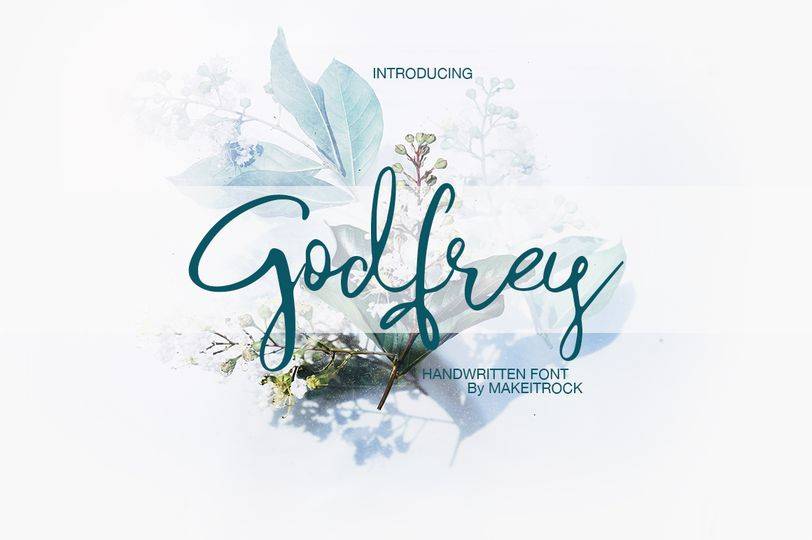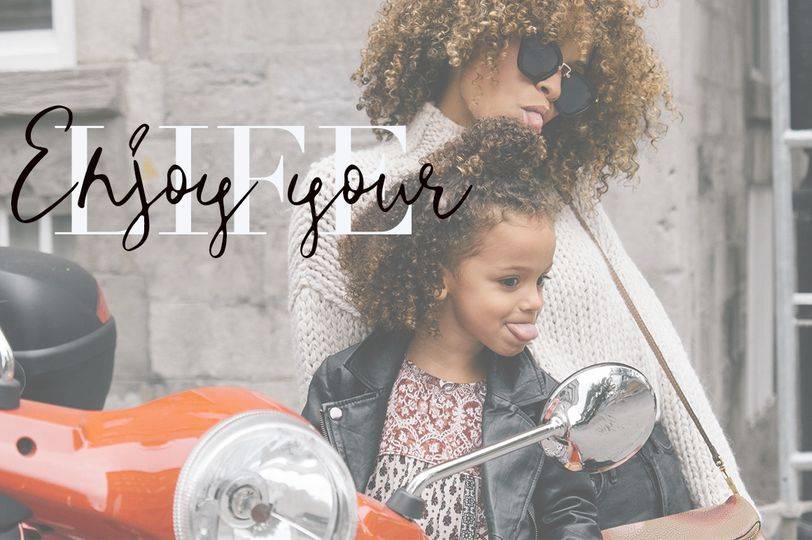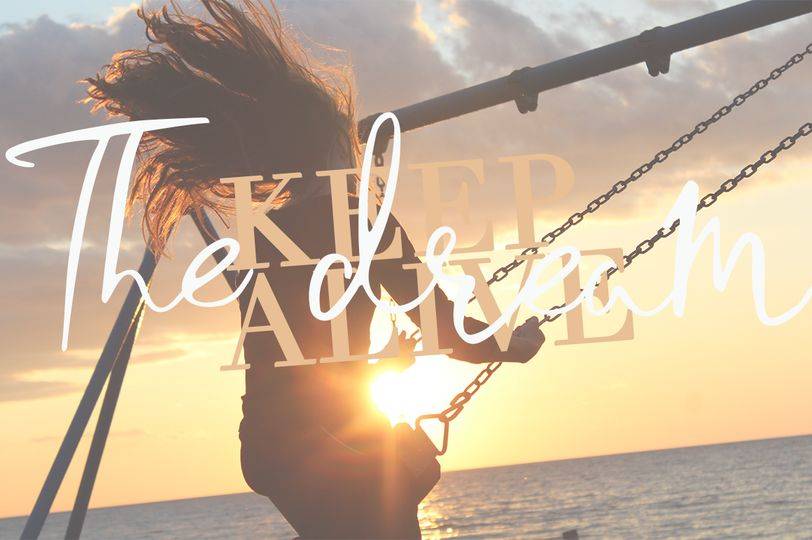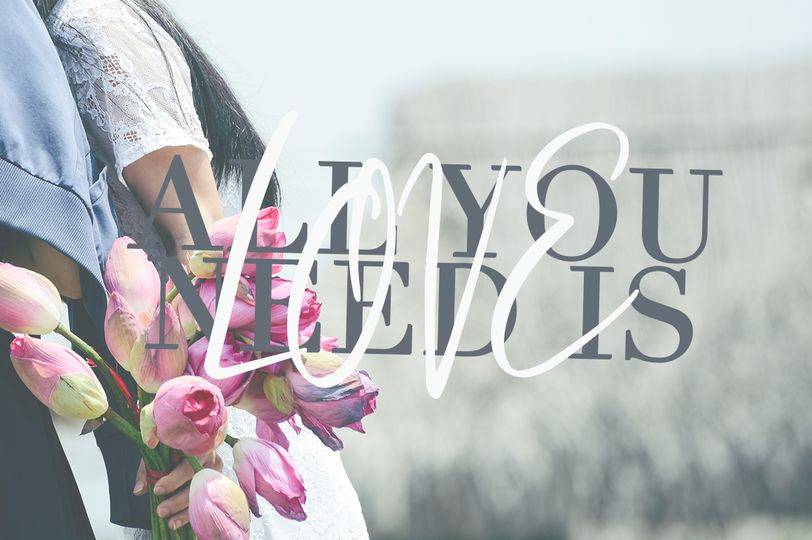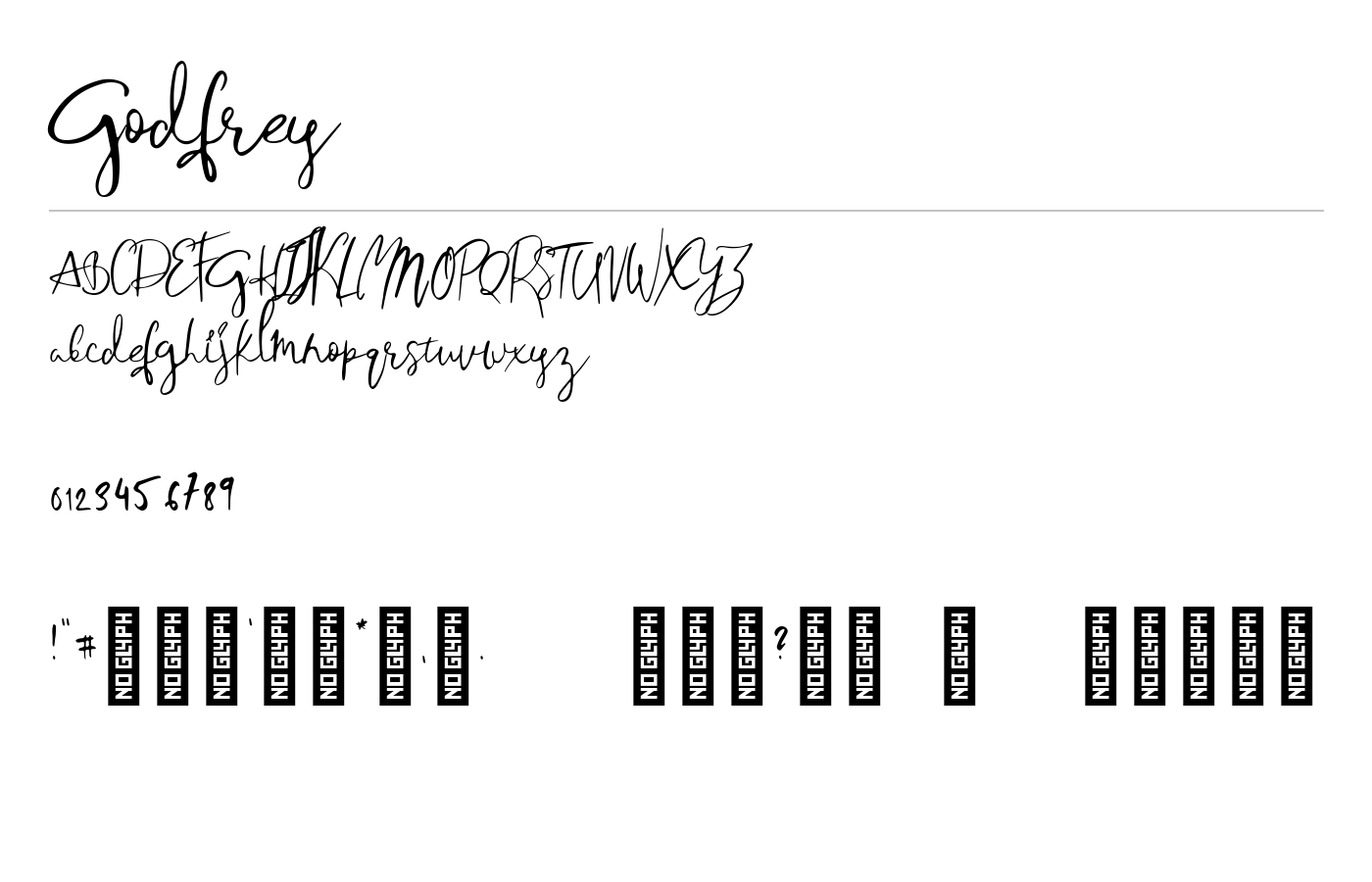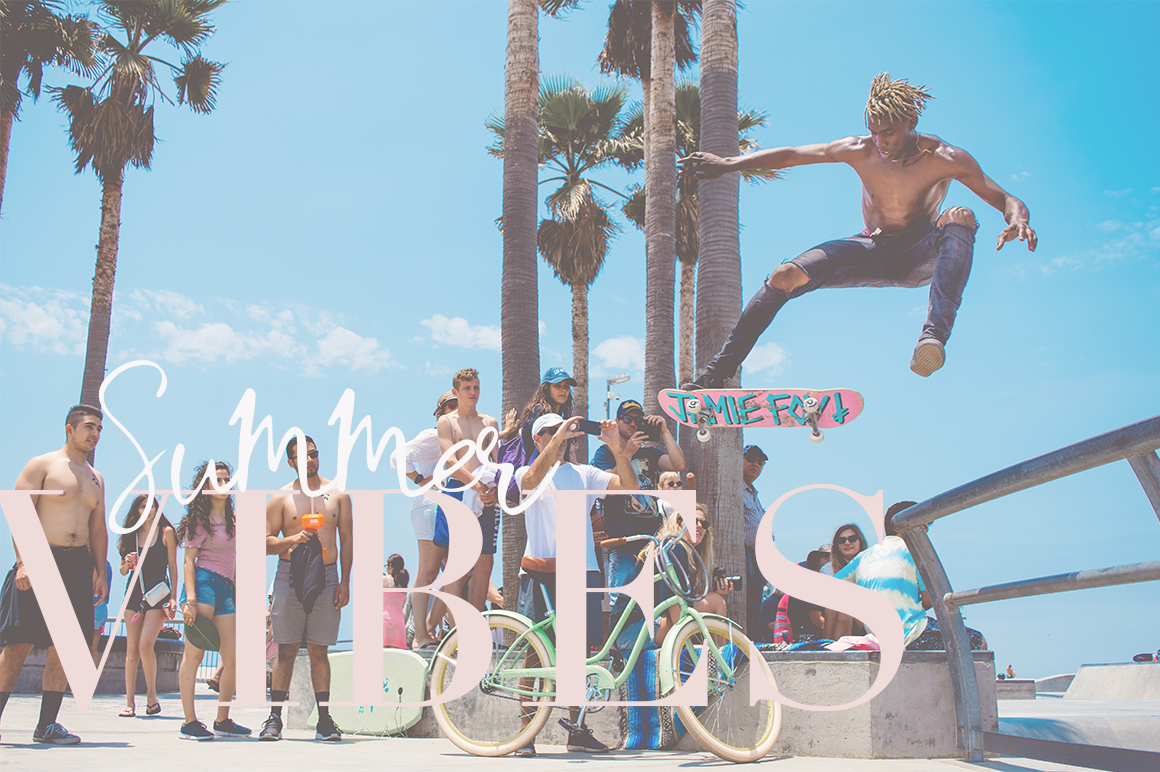
Godfrey is a delicate, handwritten script font characterized by its flowing, slender strokes and casual, artistic feel. Its light weight and tall, narrow letterforms give it an elegant yet approachable personality, making it ideal for personal branding, creative projects, and invitations where a touch of charm and individuality is desired. This font works best in large sizes or headlines, adding a unique and expressive flair to designs that seek to convey warmth and creativity.
| Font family | Godfrey |
| Designer | MakeitRock |